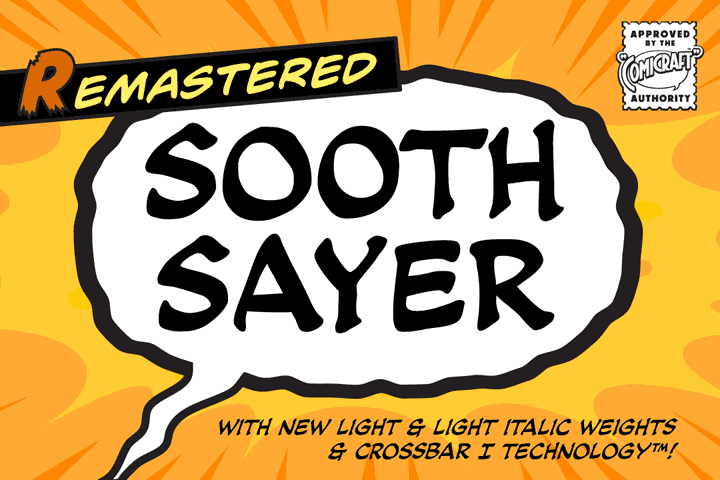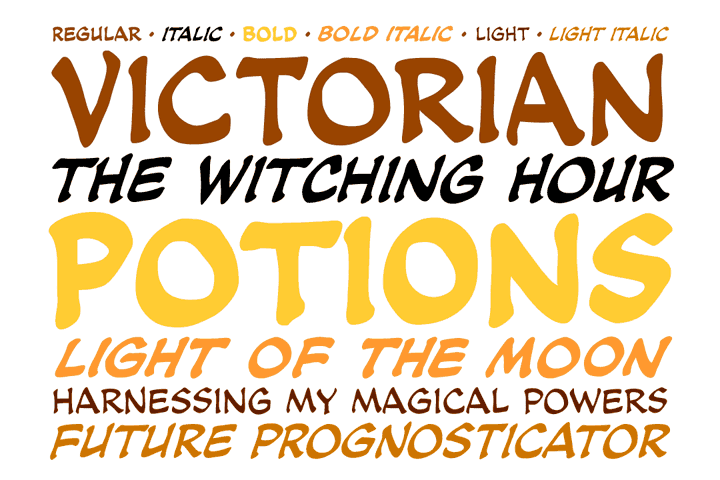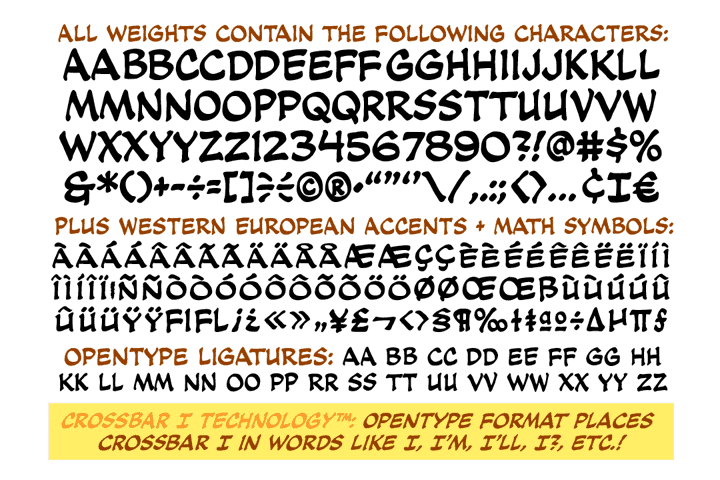
A soft spoken sorceress whispers sweet somethings in your shell-like ear. Her words excite and enthrall, tantalize and tease, they soothe and seduce, stimulate and sustain you, they awaken and arouse you, they entice and engorge you, they -- oh, I’m sorry, what was I supposed to be saying? Oh yeah, from the pages of DC Comics’ Vertigo title, THE WITCHING HOUR, and Joe Kelly and Chris Bachalo’s STEAMPUNK, Comicraft is happy to make available one of our most requested fonts... Hey, what happened to that cute girl with the white hair? And, Hey, Where’s my wallet?!?